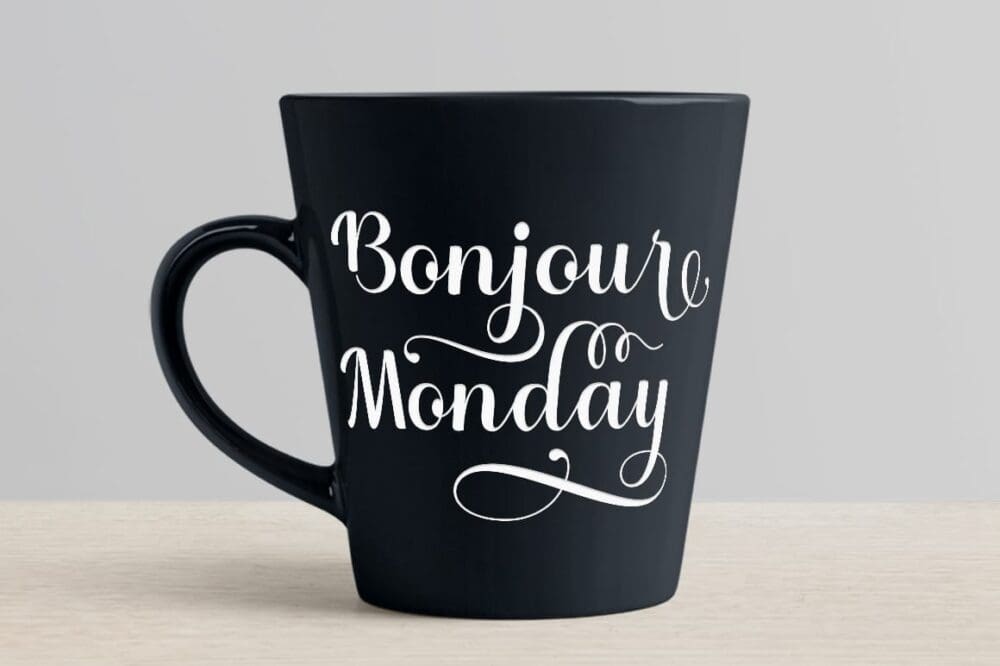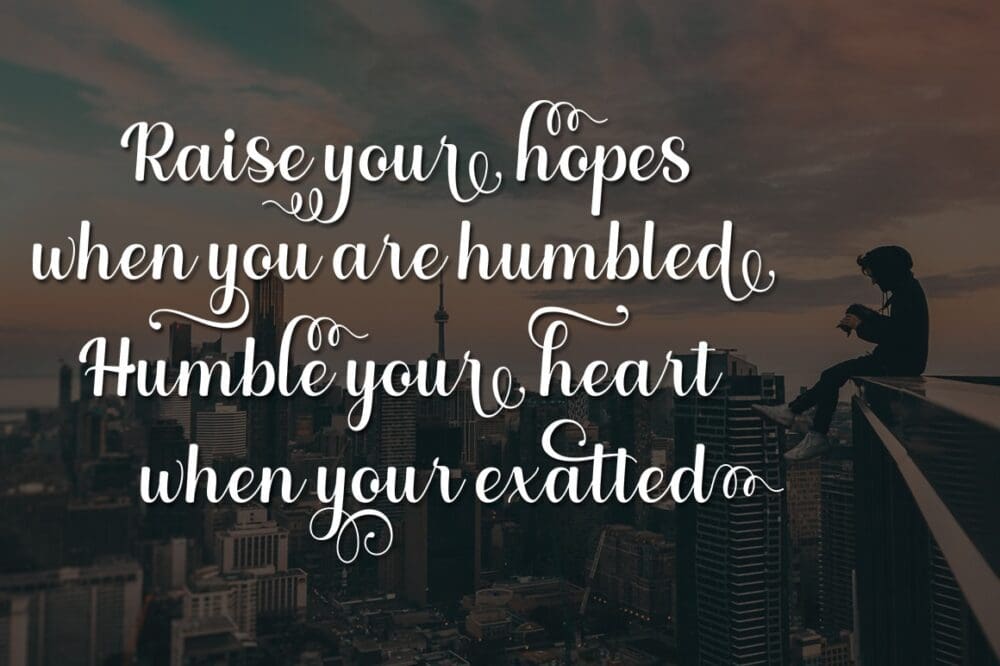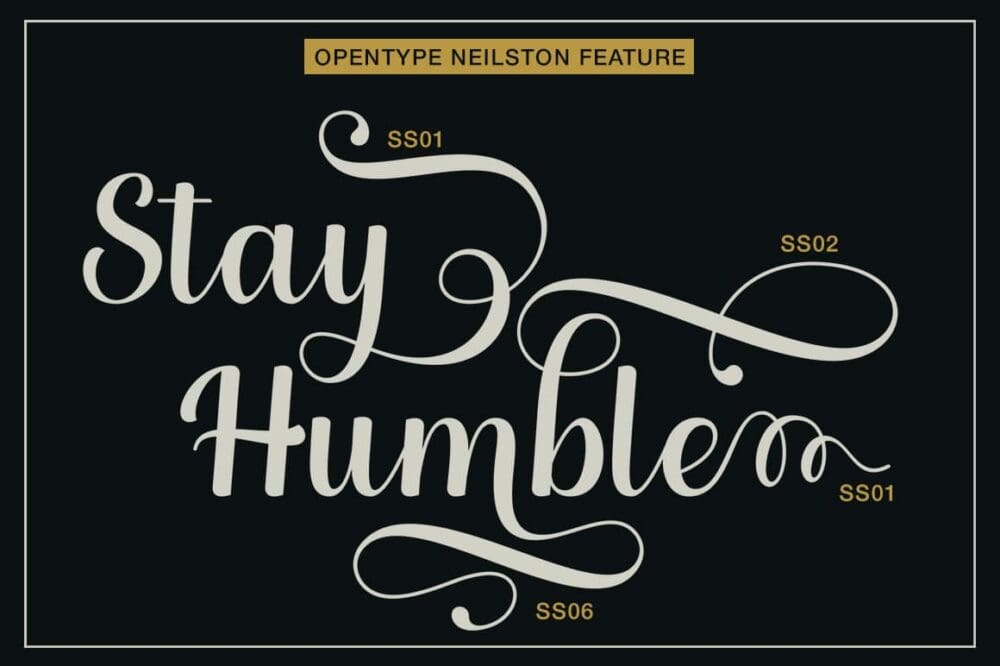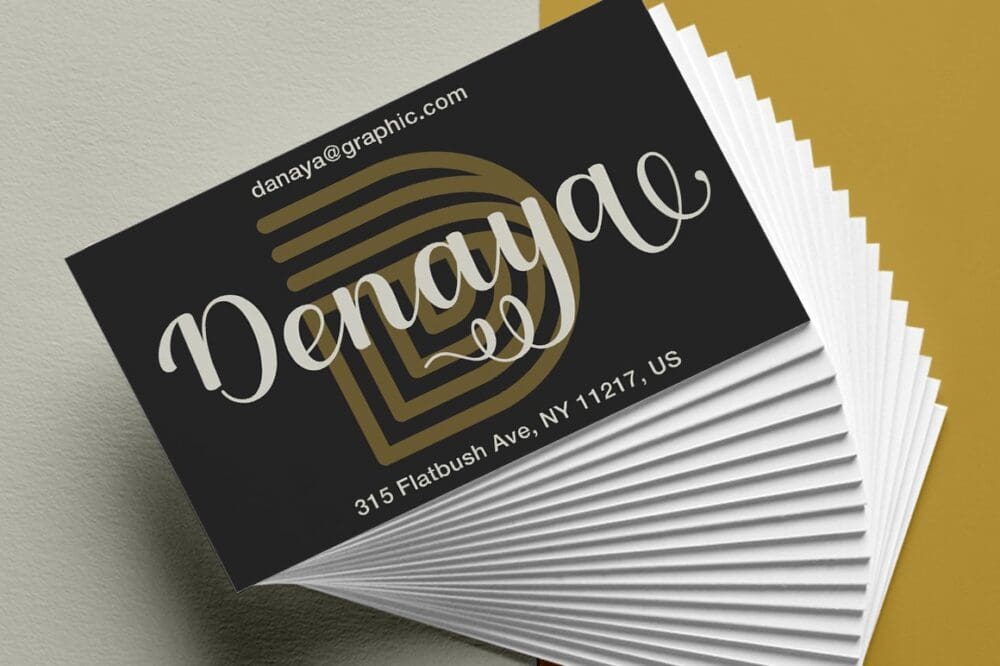
Neilston Script Font
Neilston Script Font is a bold handmade font of beautiful bold typeface with an authentic touch. This includes OpenType features with PUA encoded such as alternatives and ligature. This font is perfectly made to be applied especially in logos, and various other formal forms such as invitations, labels, logos, magazines, books, greeting/wedding cards, packaging, fashion, make-up, stationery, novels, labels, or any type of advertising purpose.